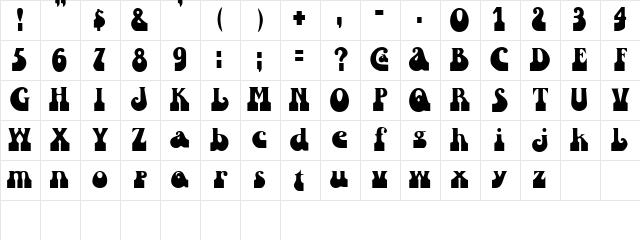
SandCastles Regular
SandCastles Family
Design Context for SandCastles
SandCastles is a composed and adaptable typeface that performs quietly and consistently across a wide range of design contexts.